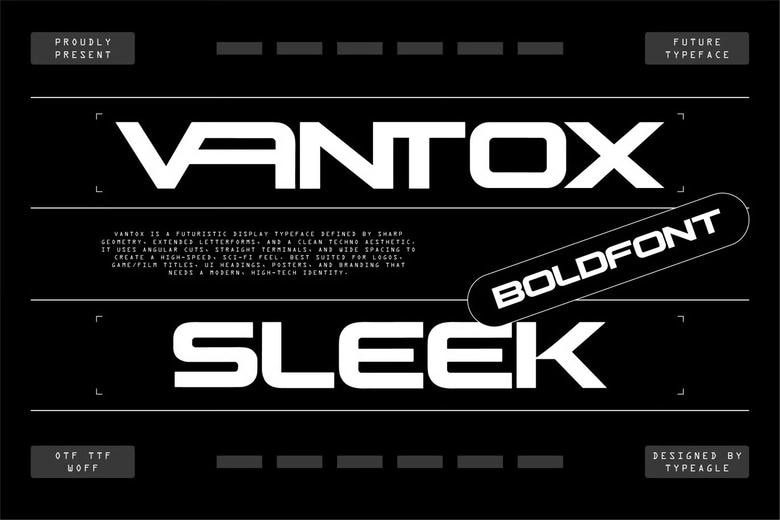
Vantox Font
Vantox is a display font with sharp shapes and long letters, giving it a clean, tech-inspired style. Its angular, sci-fi look works well for logos, game or film titles, posters, or any branding that needs a modern, high-tech touch.
Vantox Display Font